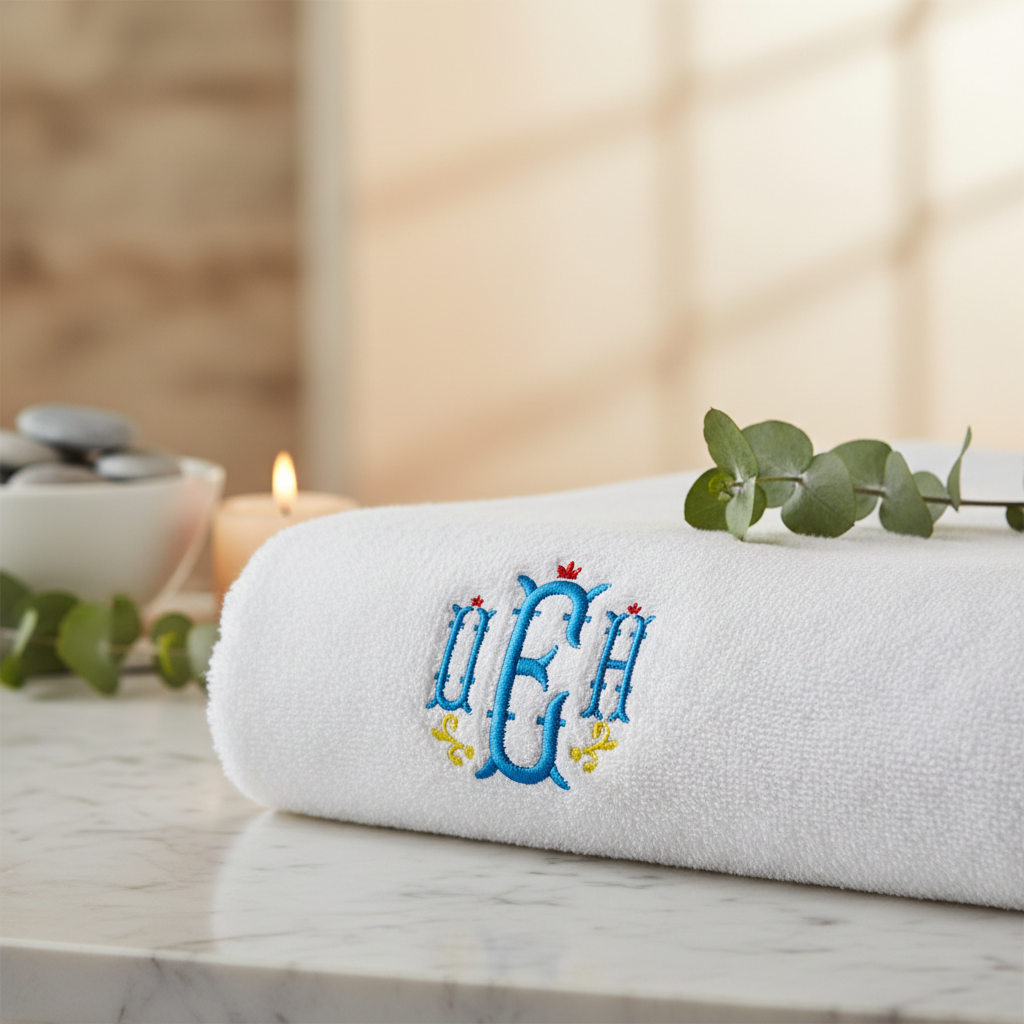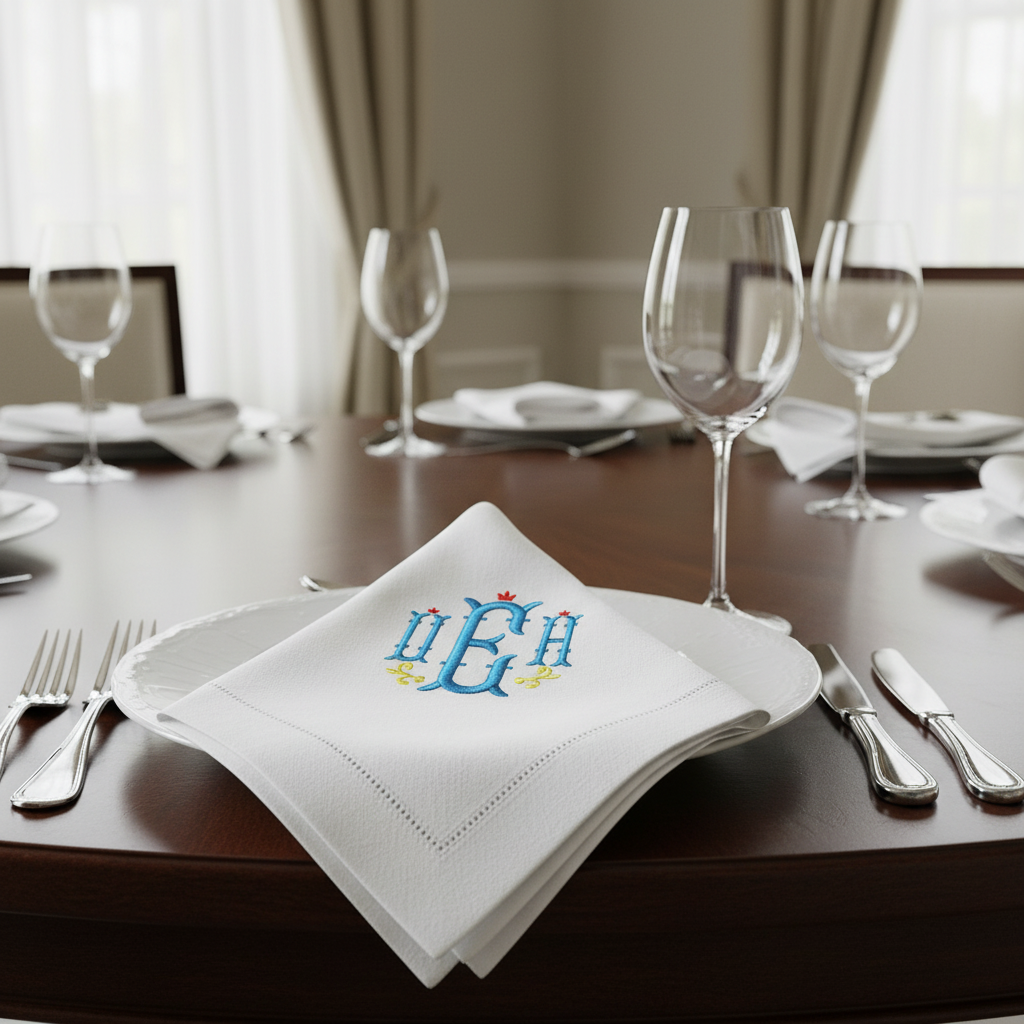
Empire Monogram Embroidery Font
Empire Monogram Embroidery Font – Full Alphabet A-Z
Add a touch of royal elegance to your embroidery projects with our Empire Monogram Font — a stunning ornate style featuring decorative interlocking letters with crown accents and flourish details. Perfect for monogrammed linens, towels, robes, shirts, and luxury personalized gifts.
- Ornate royal style with crown and flourish details
- Perfect for towels, napkins, robes, and luxury gifts